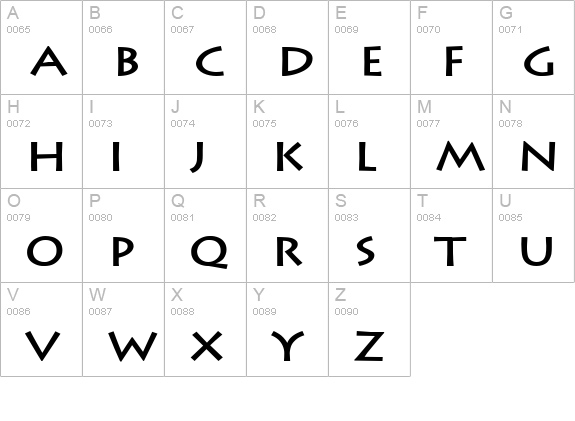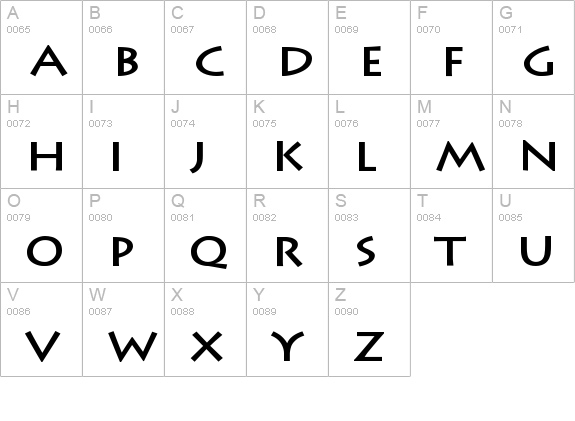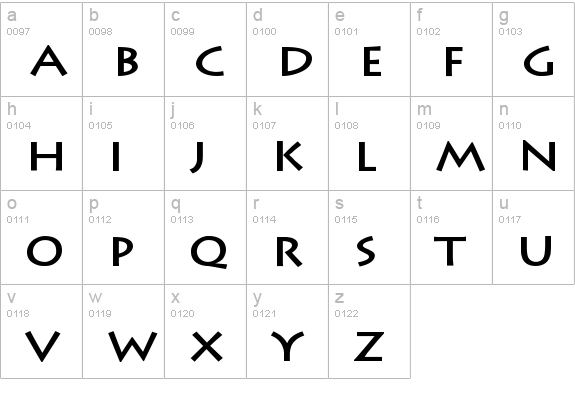
Liste Wide Bold Font Details
Liste Wide Bold is a strong, high-contrast, extended-width variant in the Liste typeface family \xE2\x80\x94 well suited to headlines, attention-grabbing titles, and strong calls-to-action.
Liste Wide Bold is a modern and versatile typeface that exudes confidence and sophistication. Its bold and wide design makes a bold statement while maintaining readability and elegance. Perfect for headlines, titles, and branding materials, Liste Wide Bold commands attention with its strong presence on the page. What sets Liste Wide Bold apart is that it is not only a stunning font choice, but it is also free to download at FontsMarket.com. This means that you can elevate your designs without breaking the bank, making it a valuable addition to any designer's toolkit. Whether you're working on a professional project or a personal creation, Liste Wide Bold offers the perfect balance of style and accessibility. Download it today and see the impact it can make on your next design endeavor.